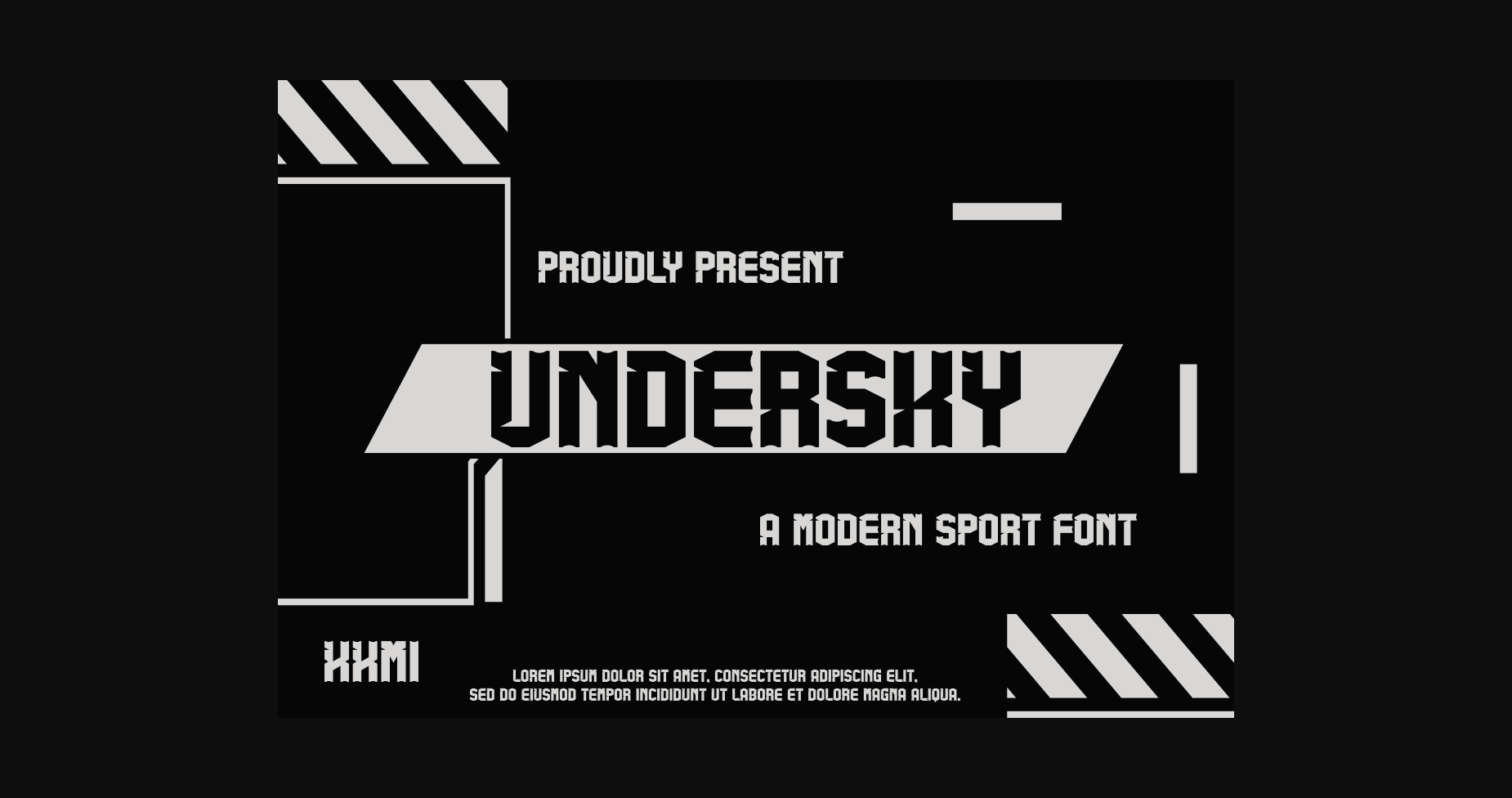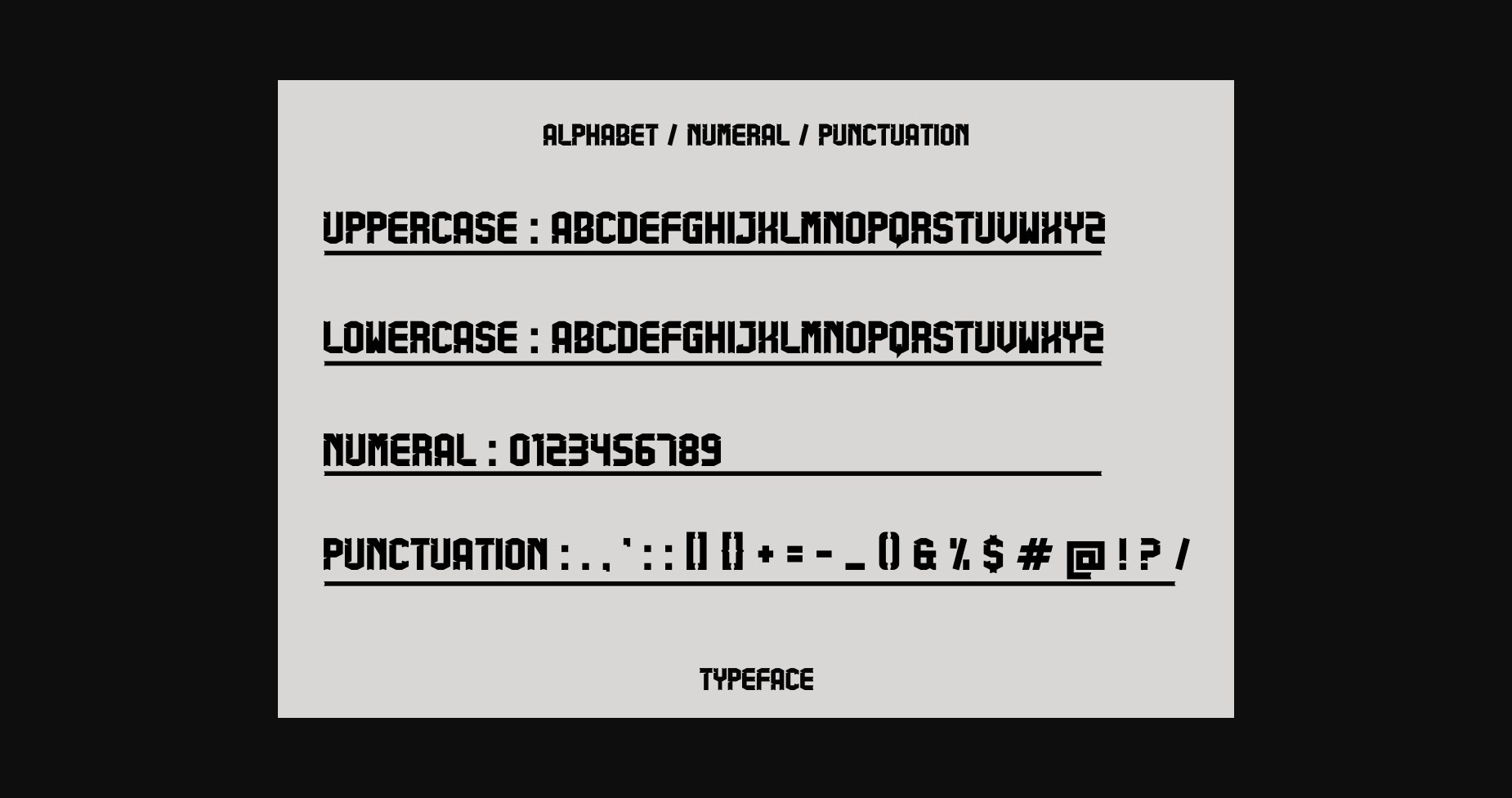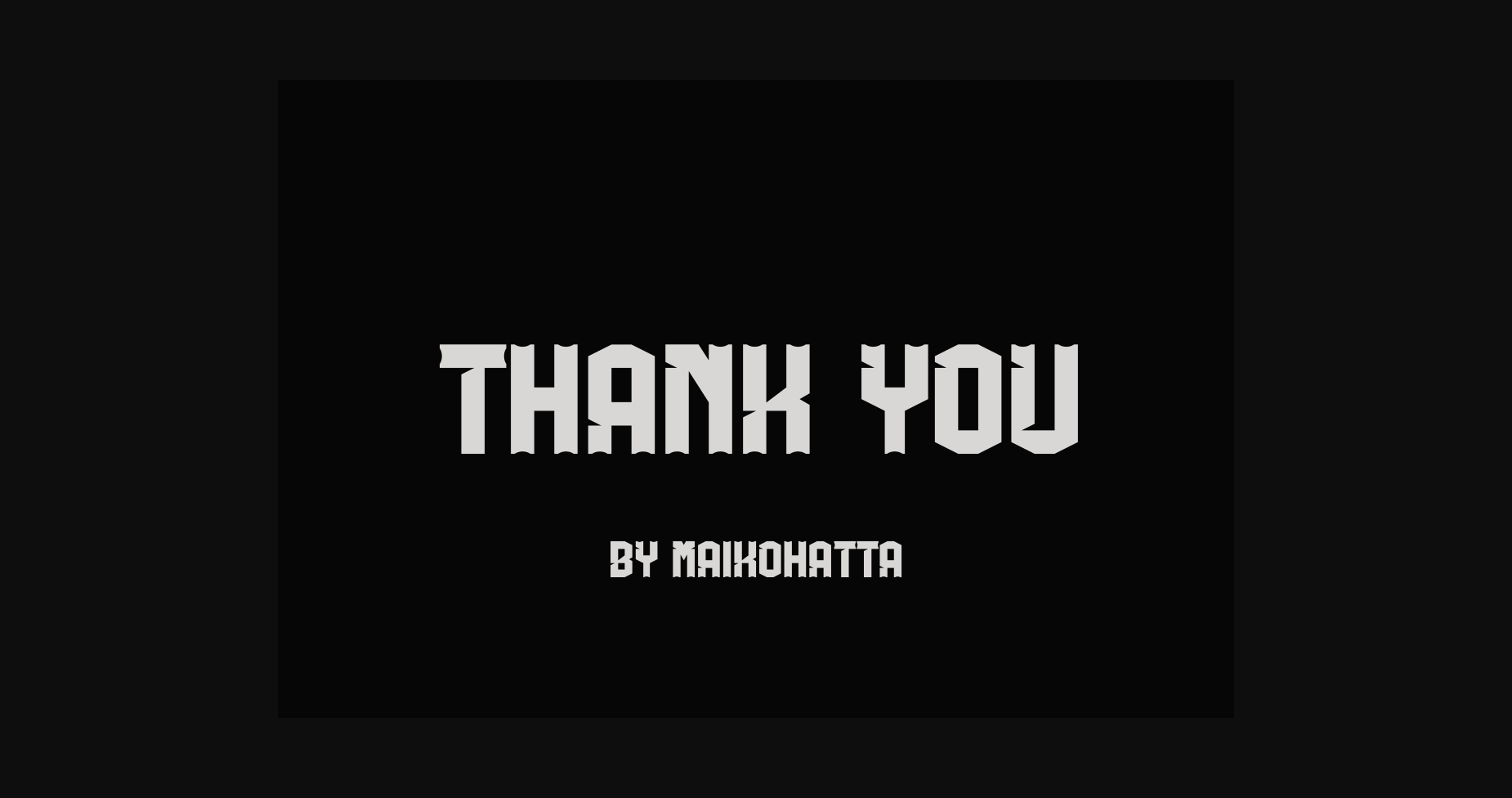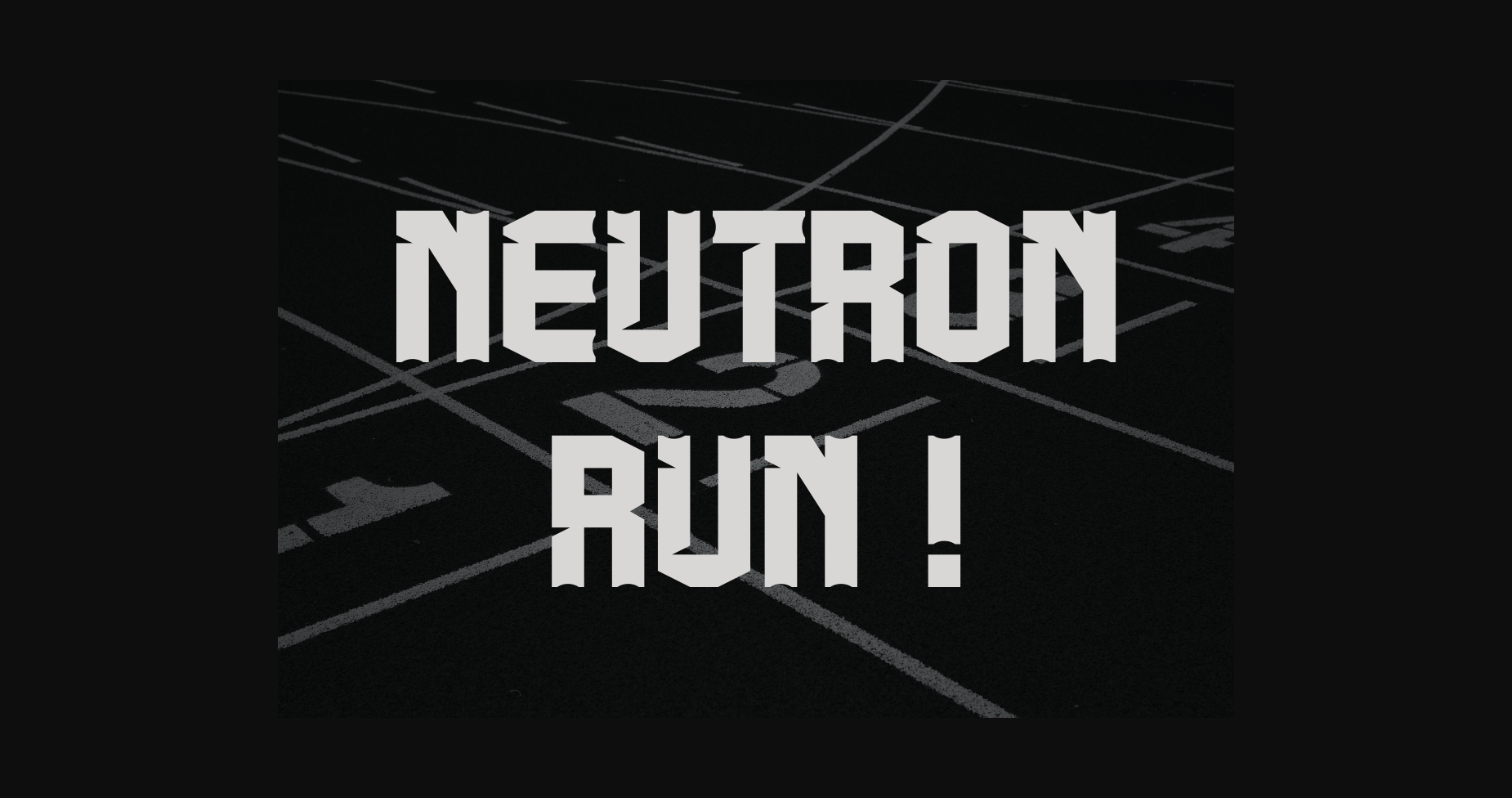
Undersky Font
About Undersky Font
Introducing our new product **UNDERSKY Font** – Modern Font
**UNDERSKY Font** – Modern Font is a bold and authentic display font. The font is suitable for any branding project like logo, template design, esport, and many more. outstanding in a wide range of contexts.